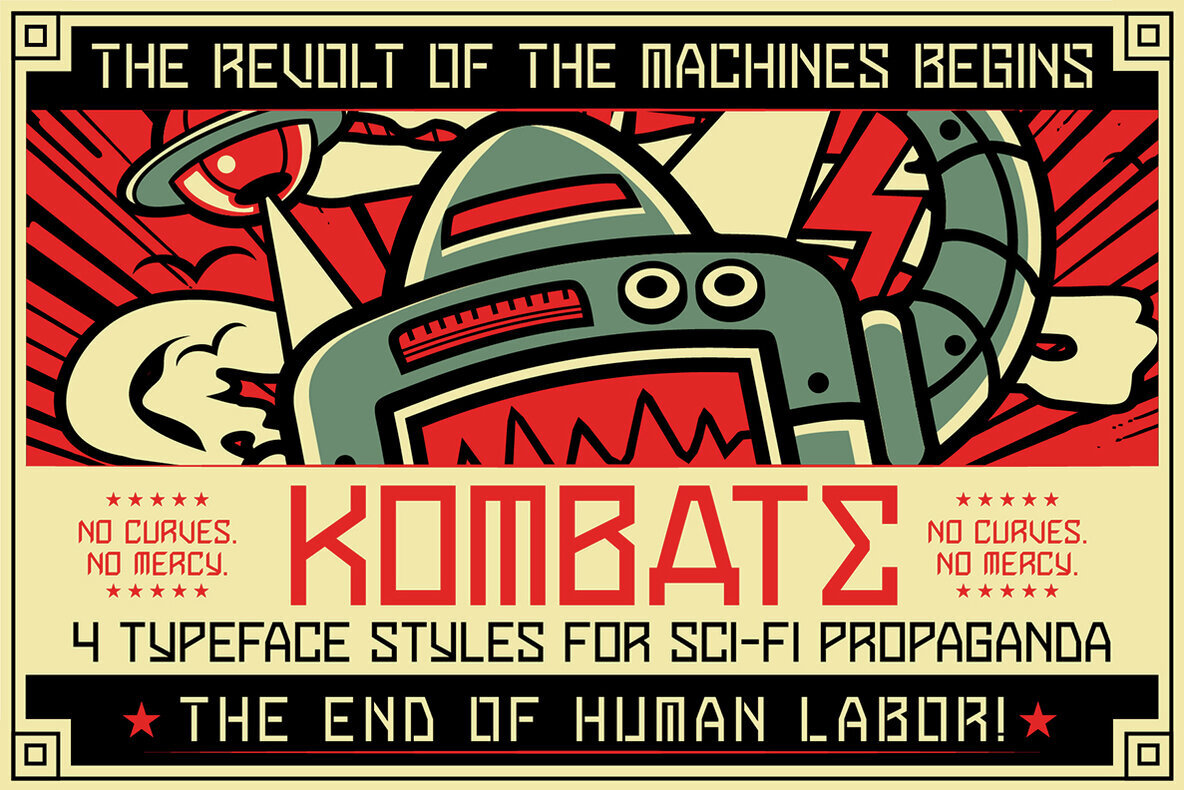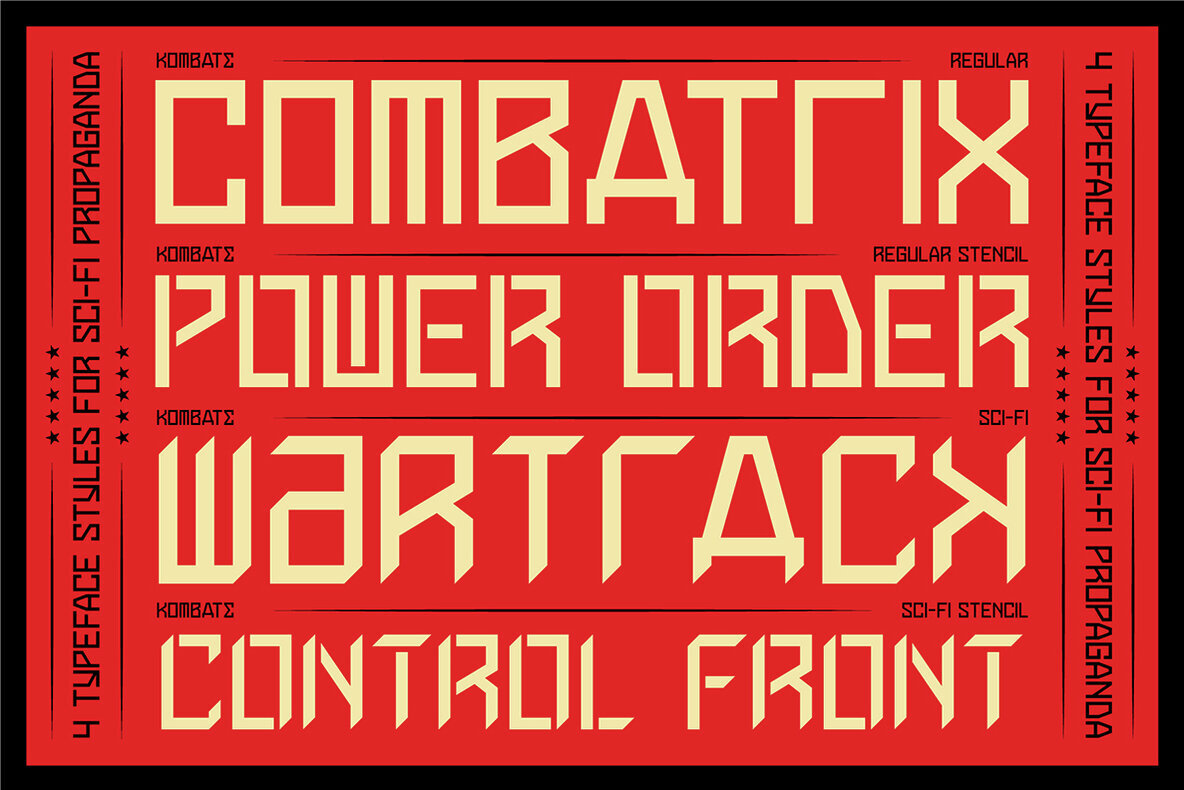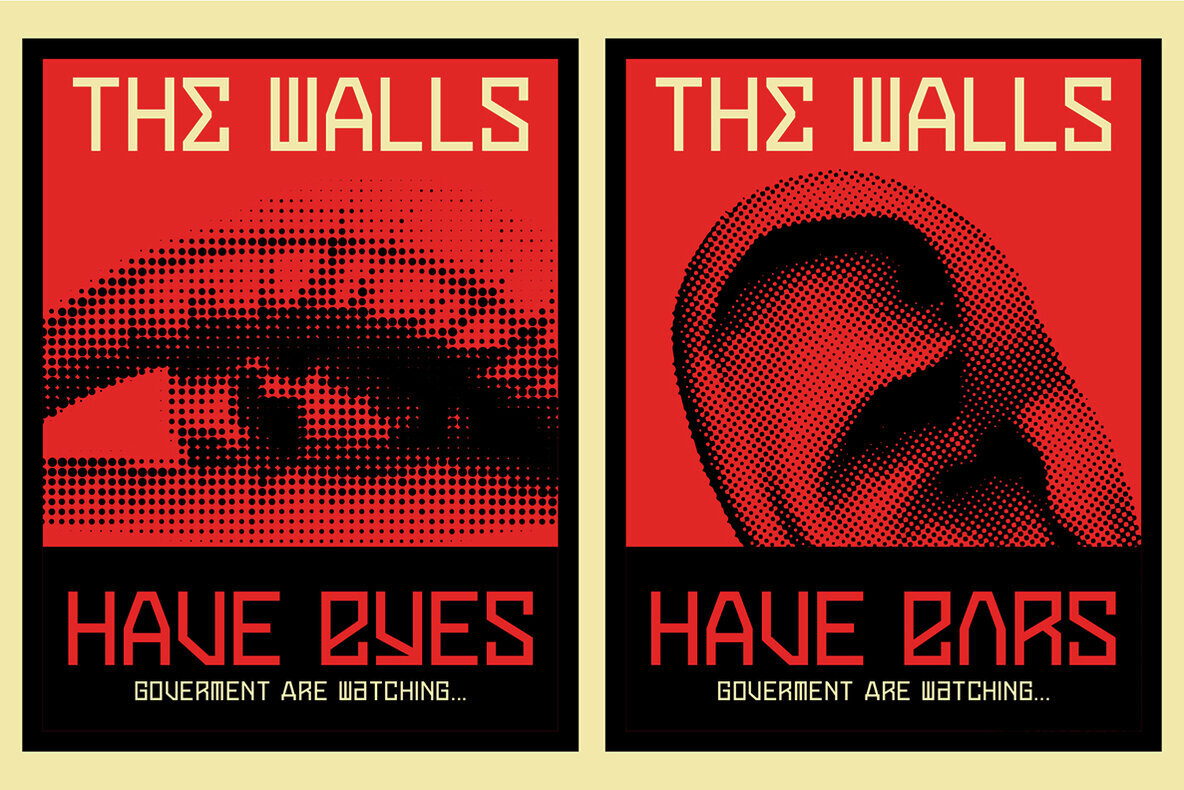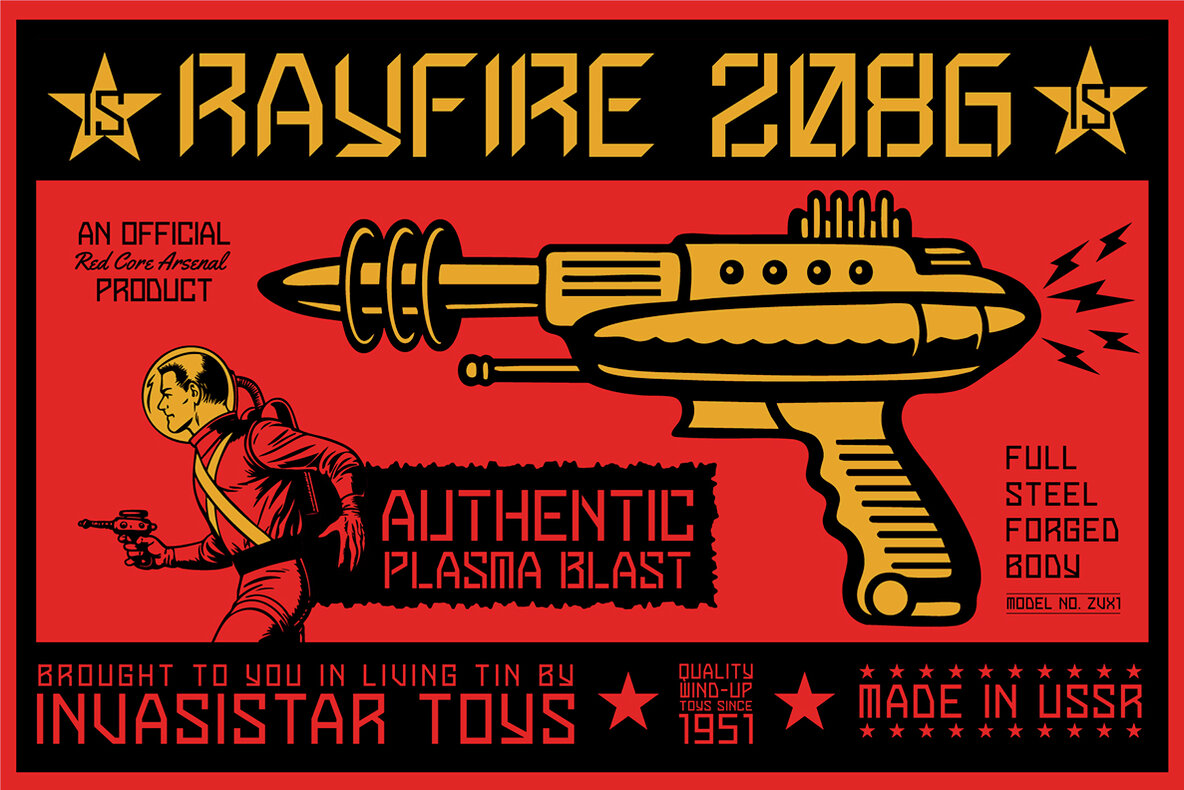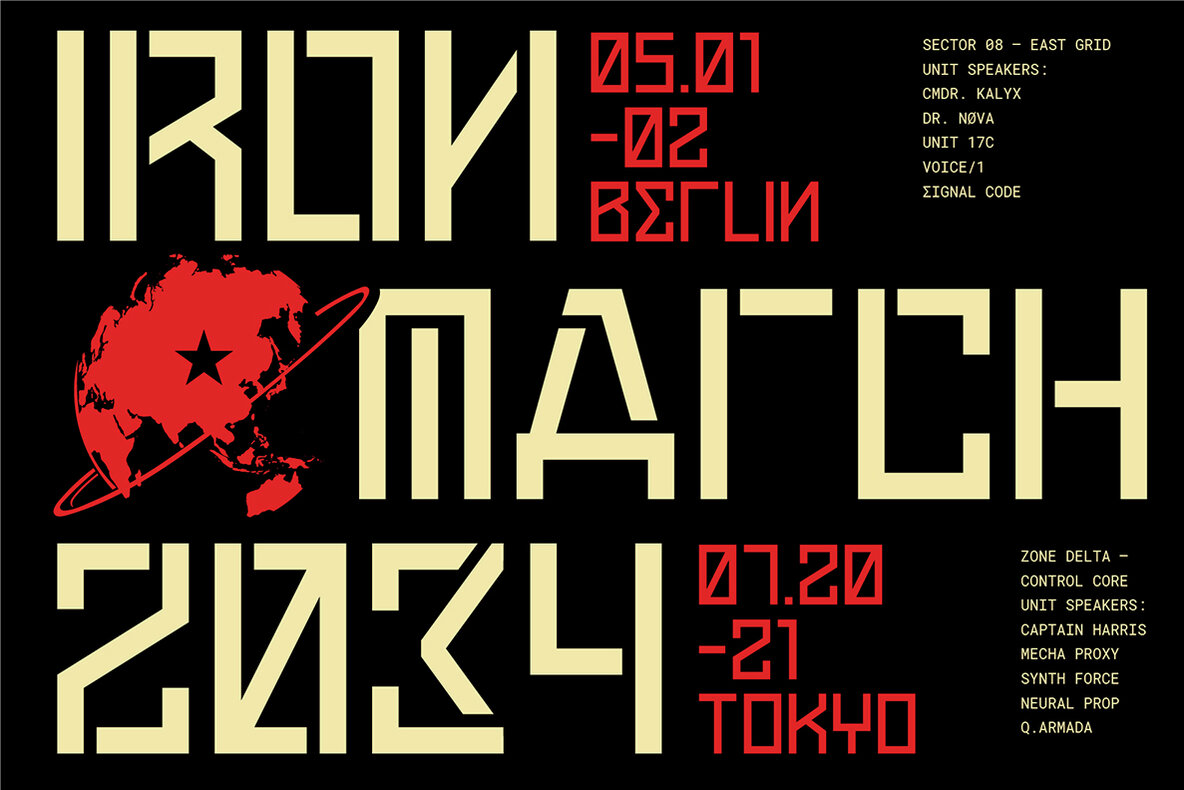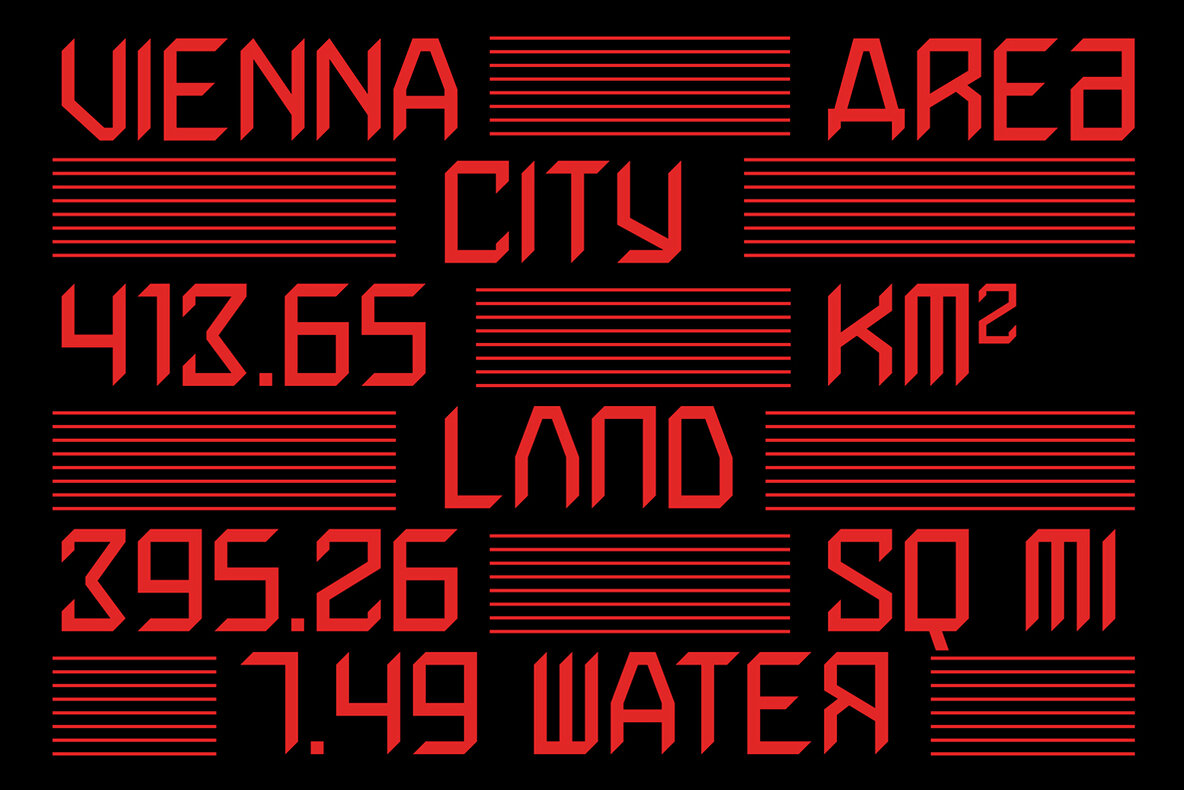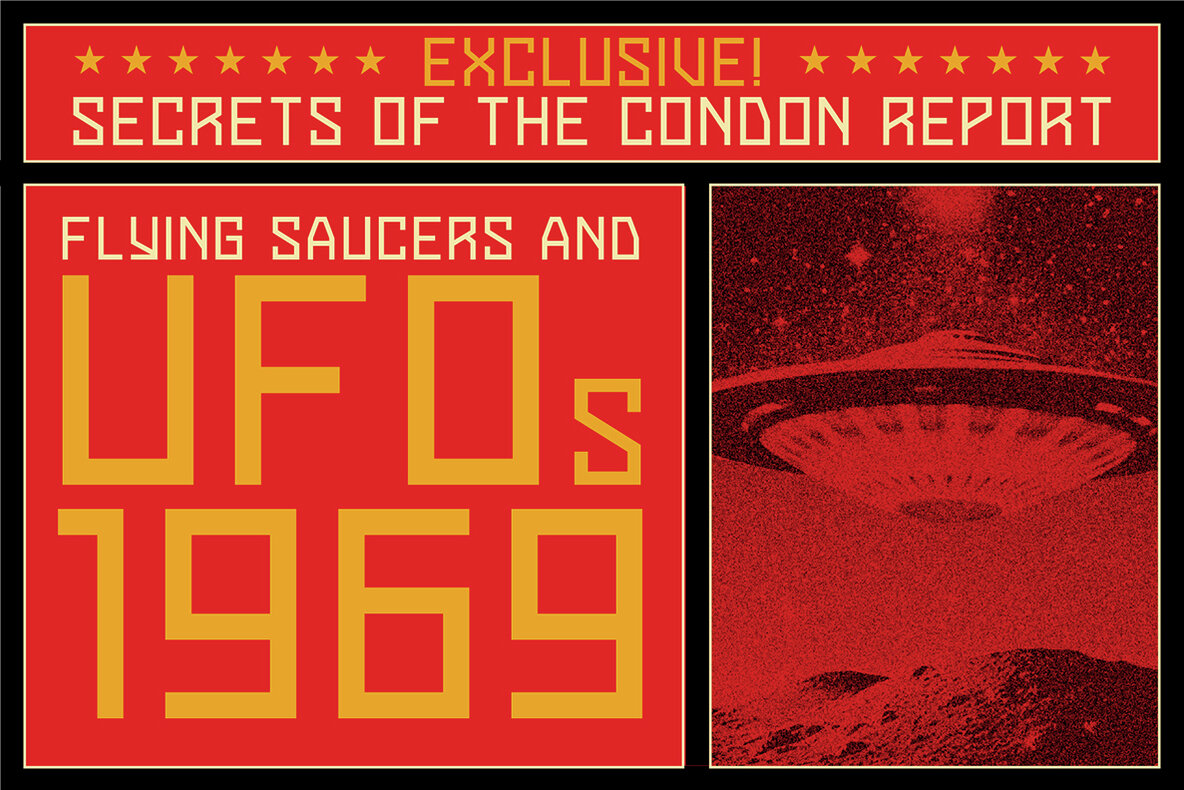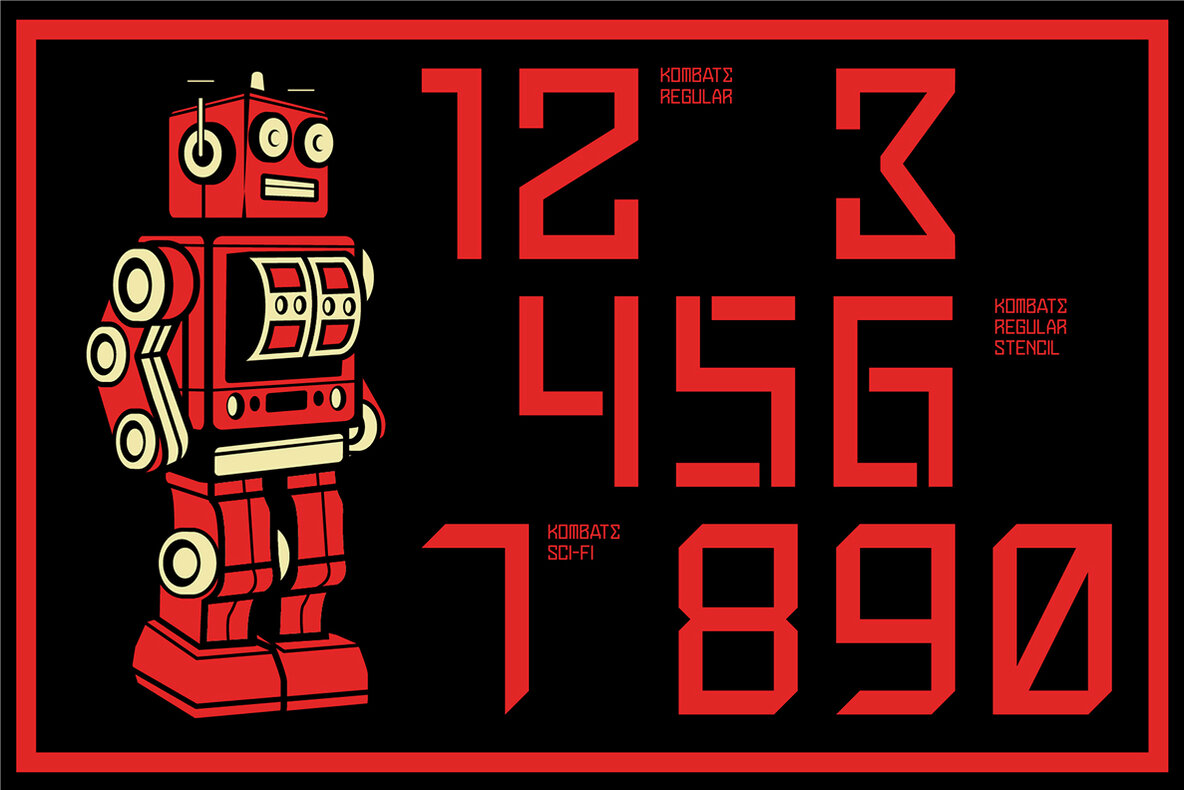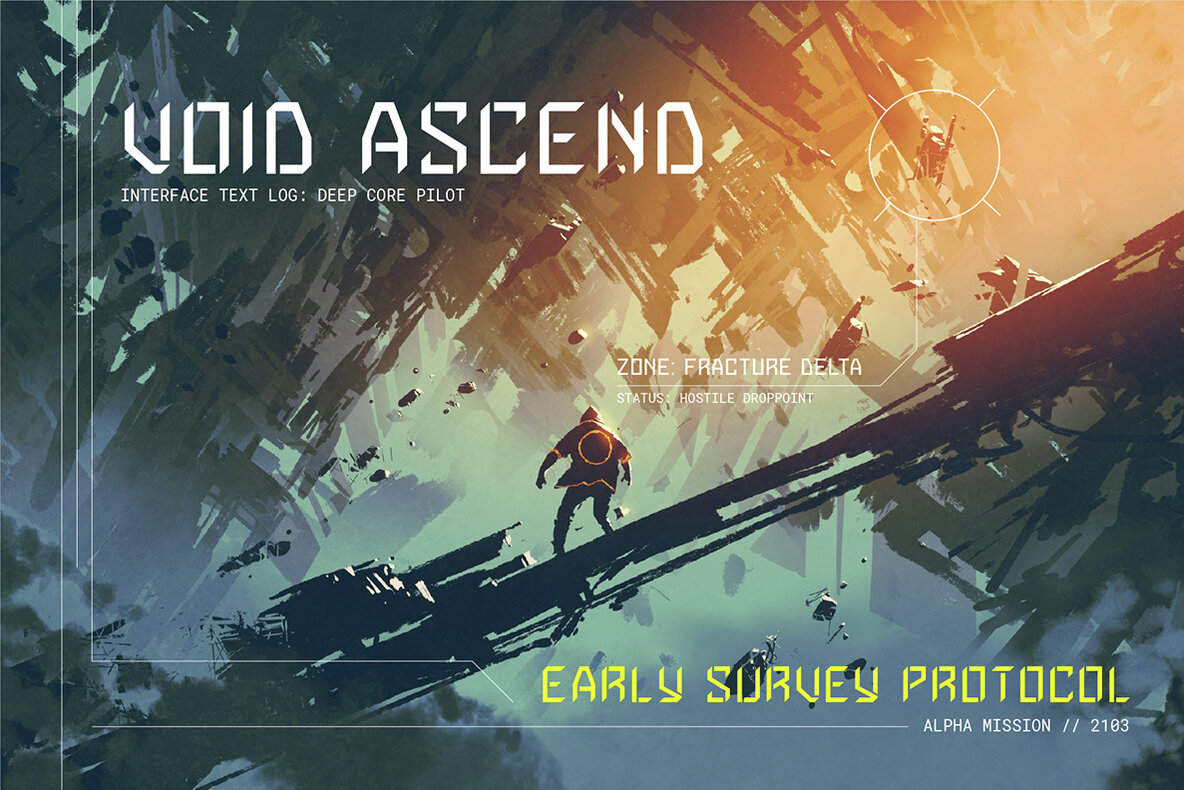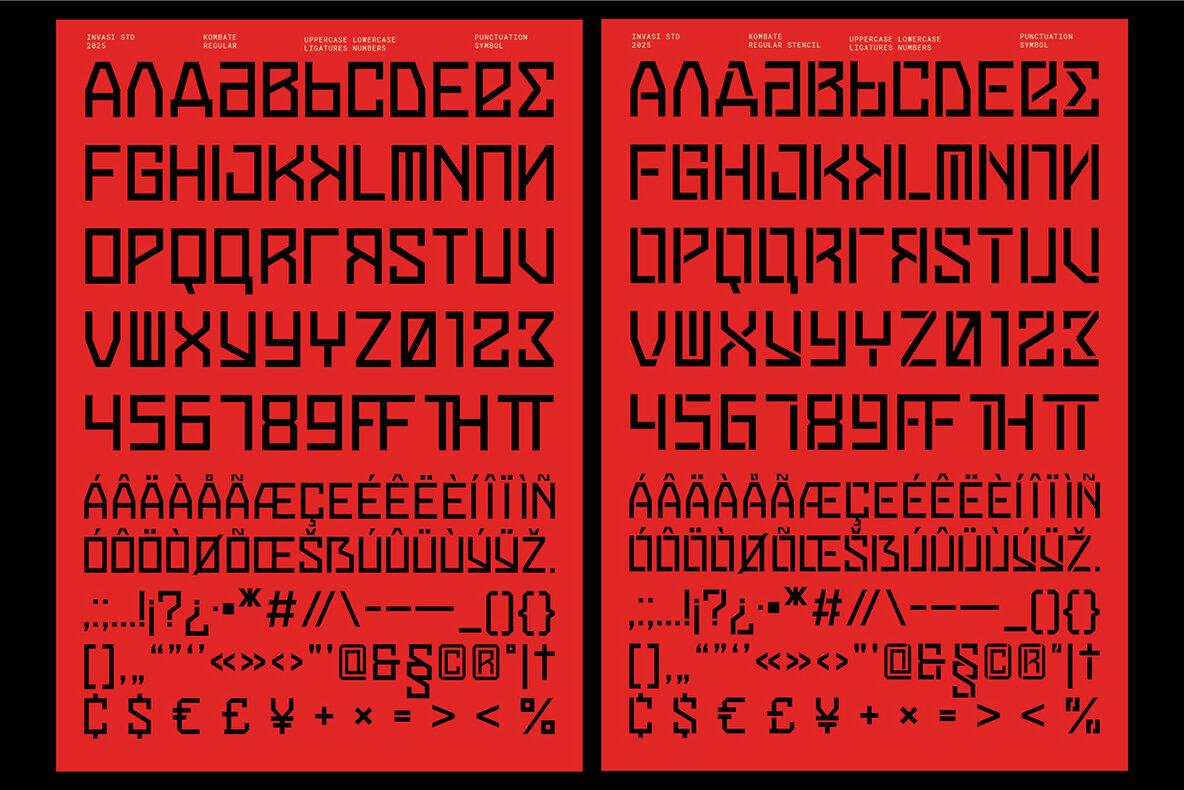
Kombate Font
In the age of automation, where digital creation reigns supreme, Kombate emerges as a typographic powerhouse. This display typeface is meticulously crafted with an uncompromising structure, drawing inspiration from the industrial aesthetics of constructivist design, Soviet-era posters, and cold war typography. It embodies a spirit of mechanical control, characterized by its sharp, angular forms. Features: Designed to demand attention, Kombate is not for the faint-hearted. It offers no curves, no concessions, just stark clarity. Whether you're crafting a dystopian user interface or a techno-fascist manifesto, Kombate doesn't embellish—it asserts with authority.Kombate: A Display Typeface for Bold Precision